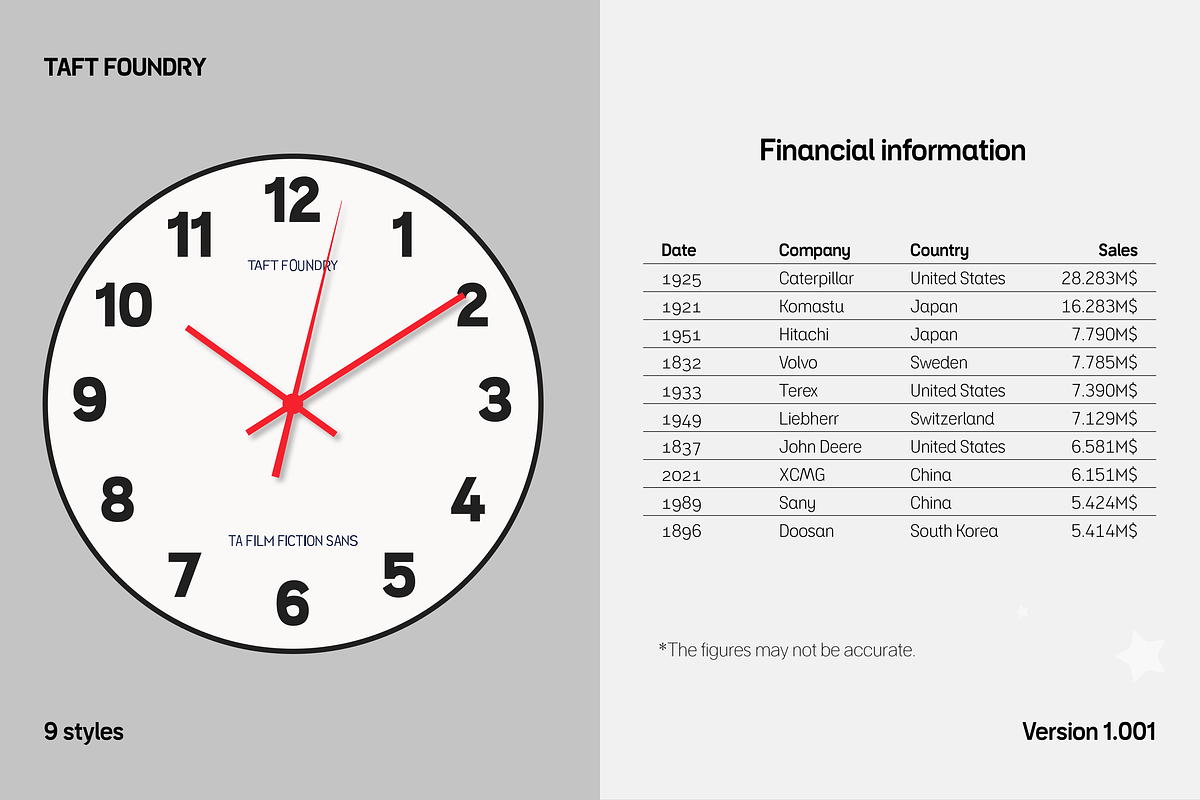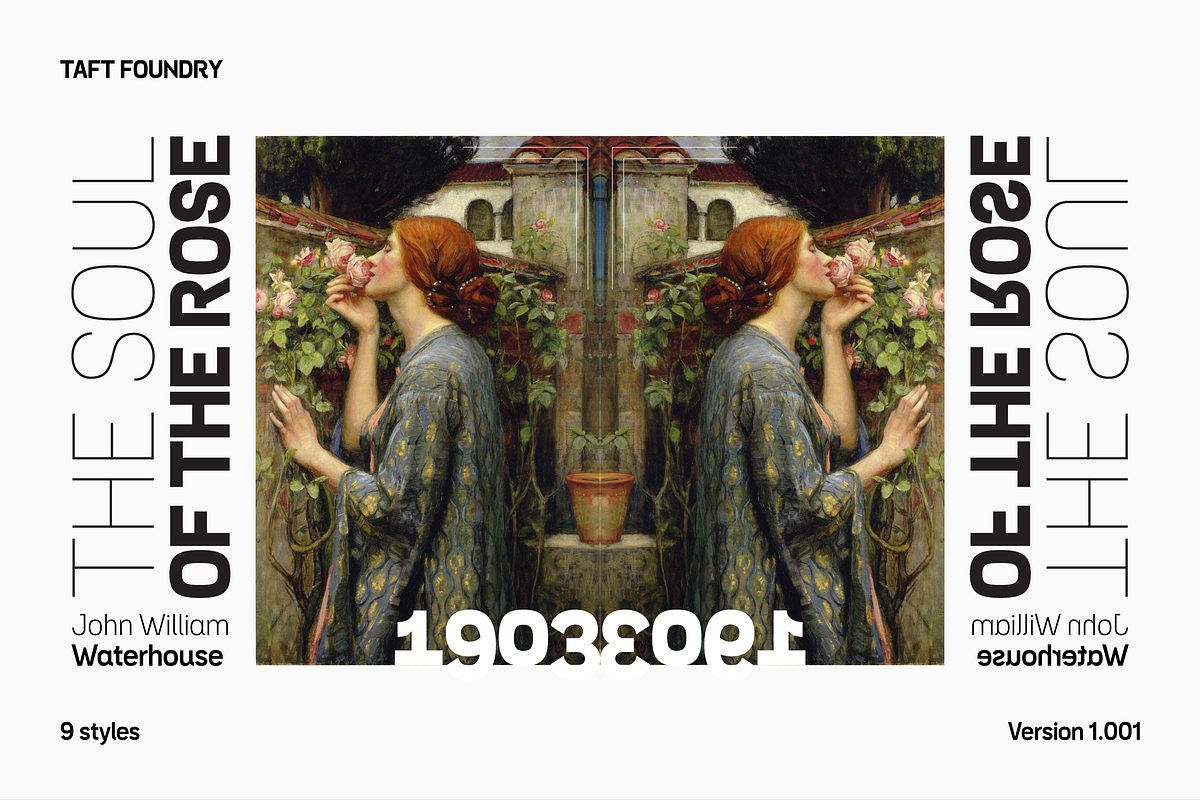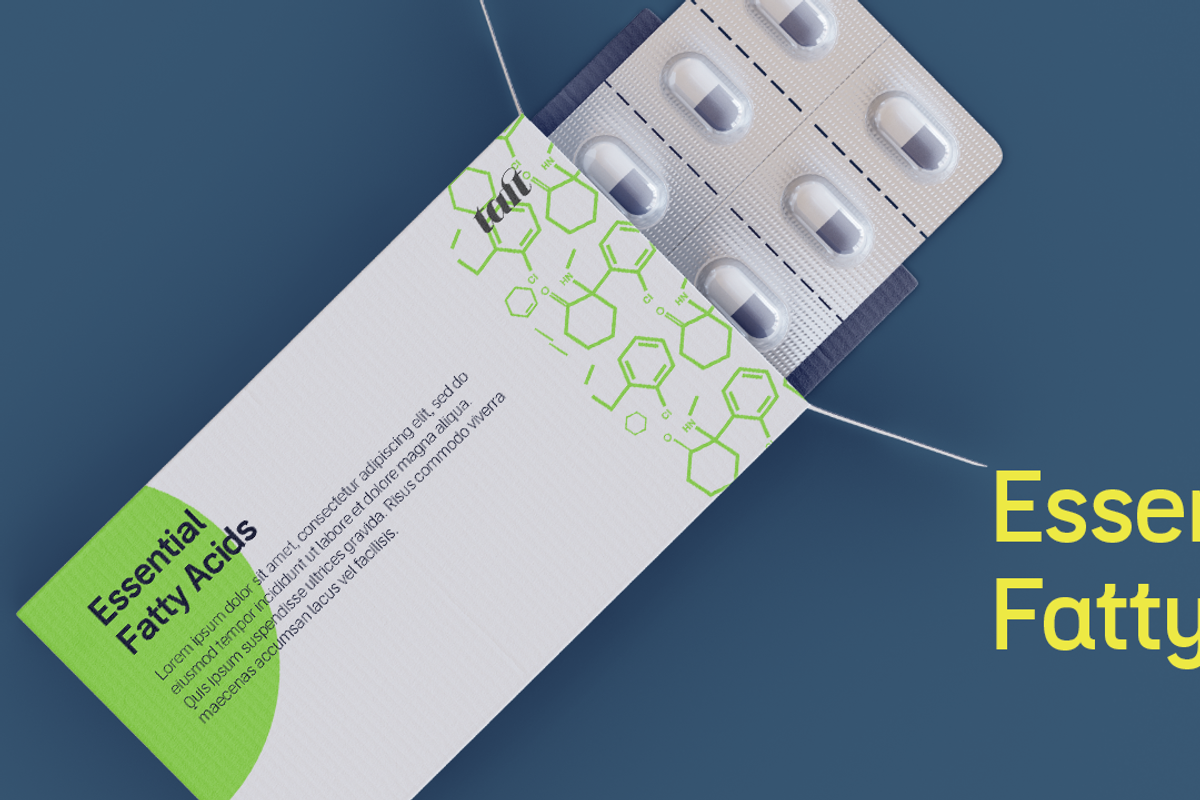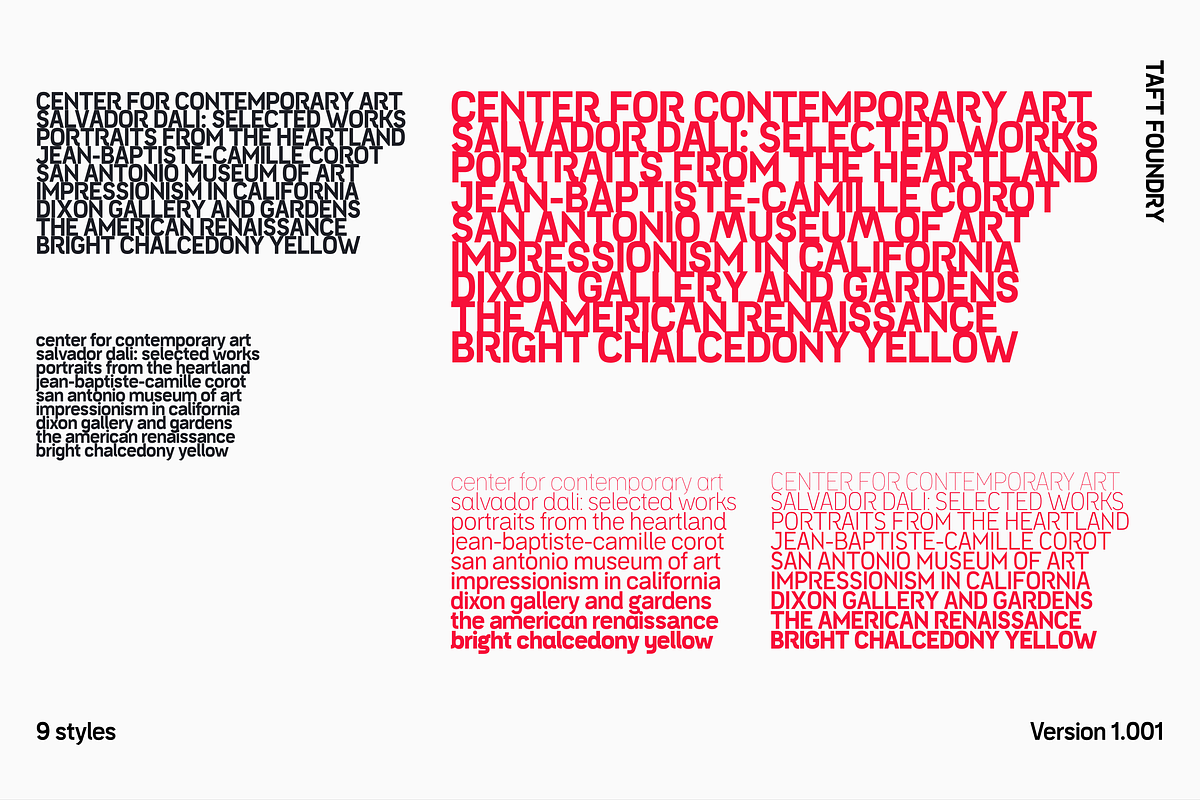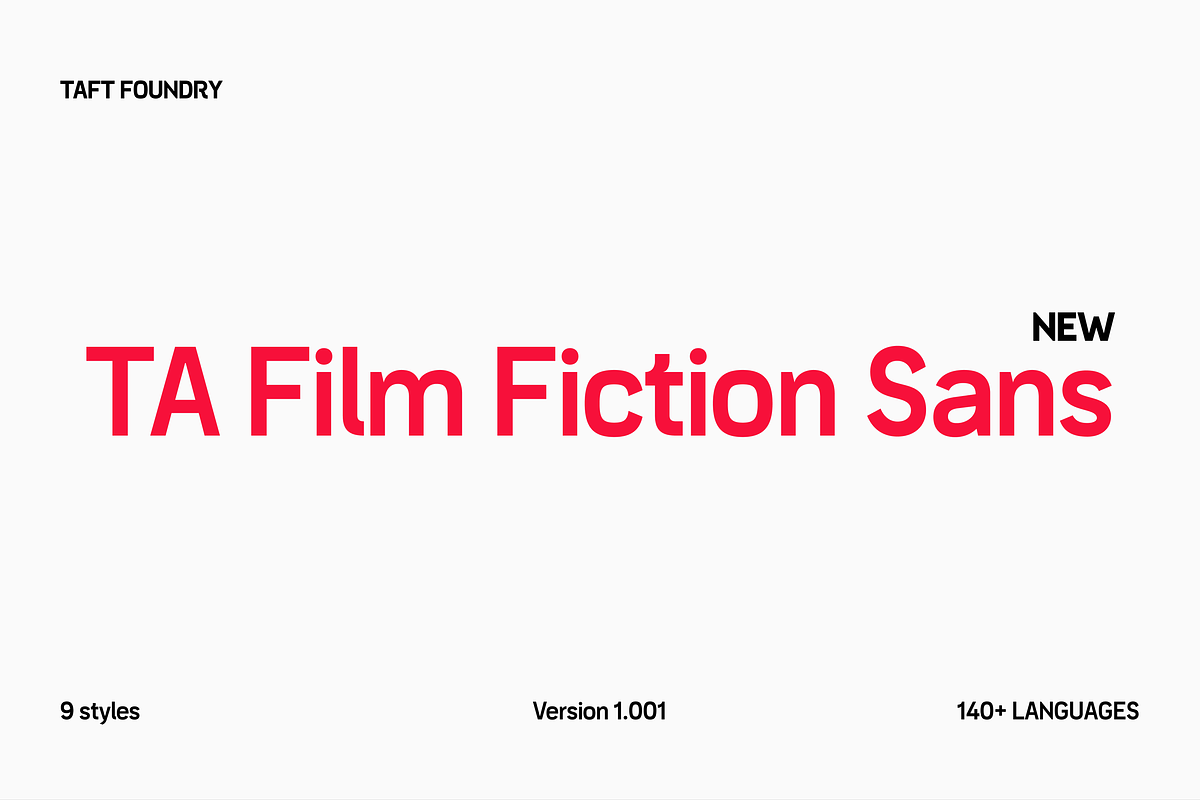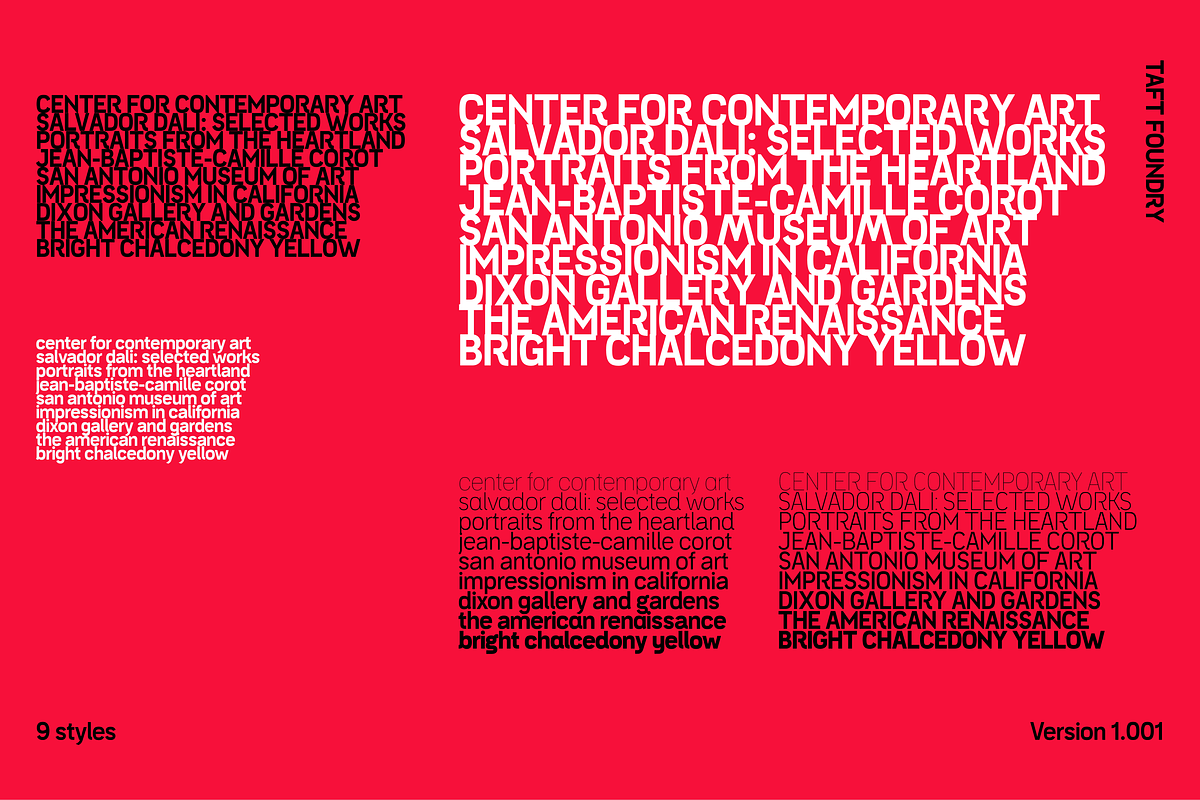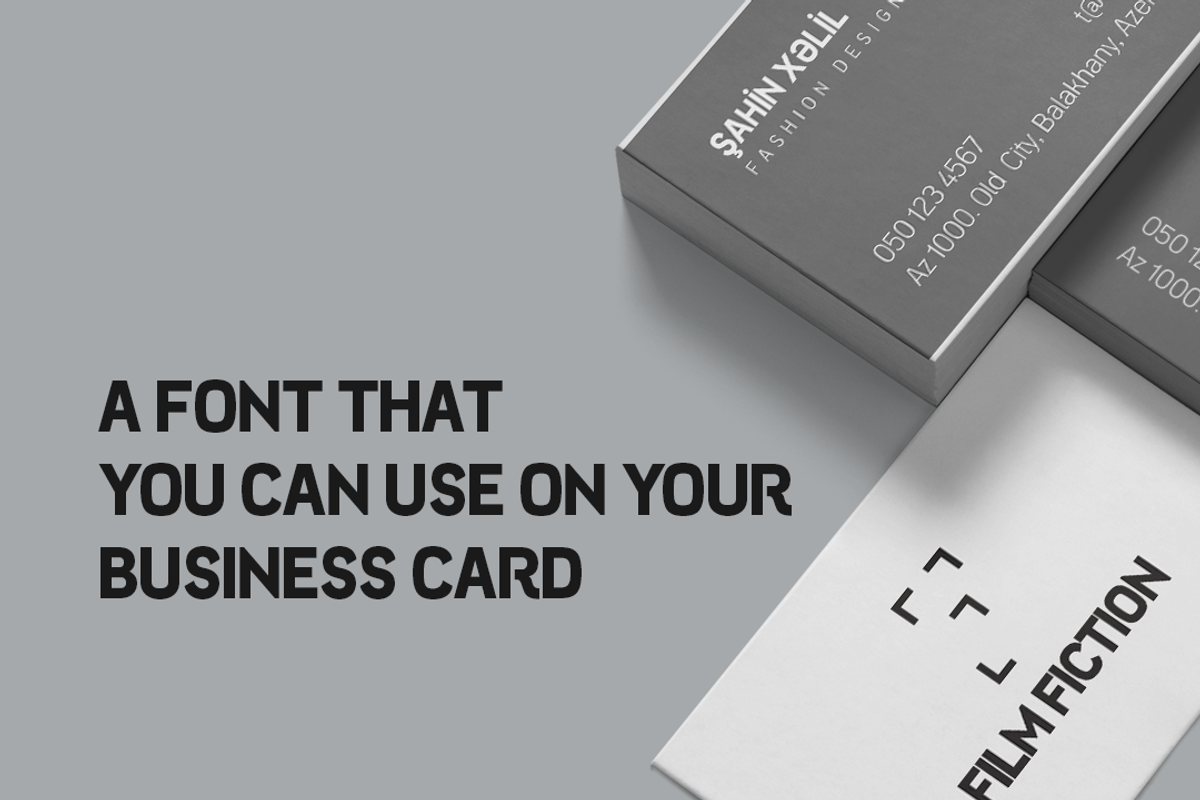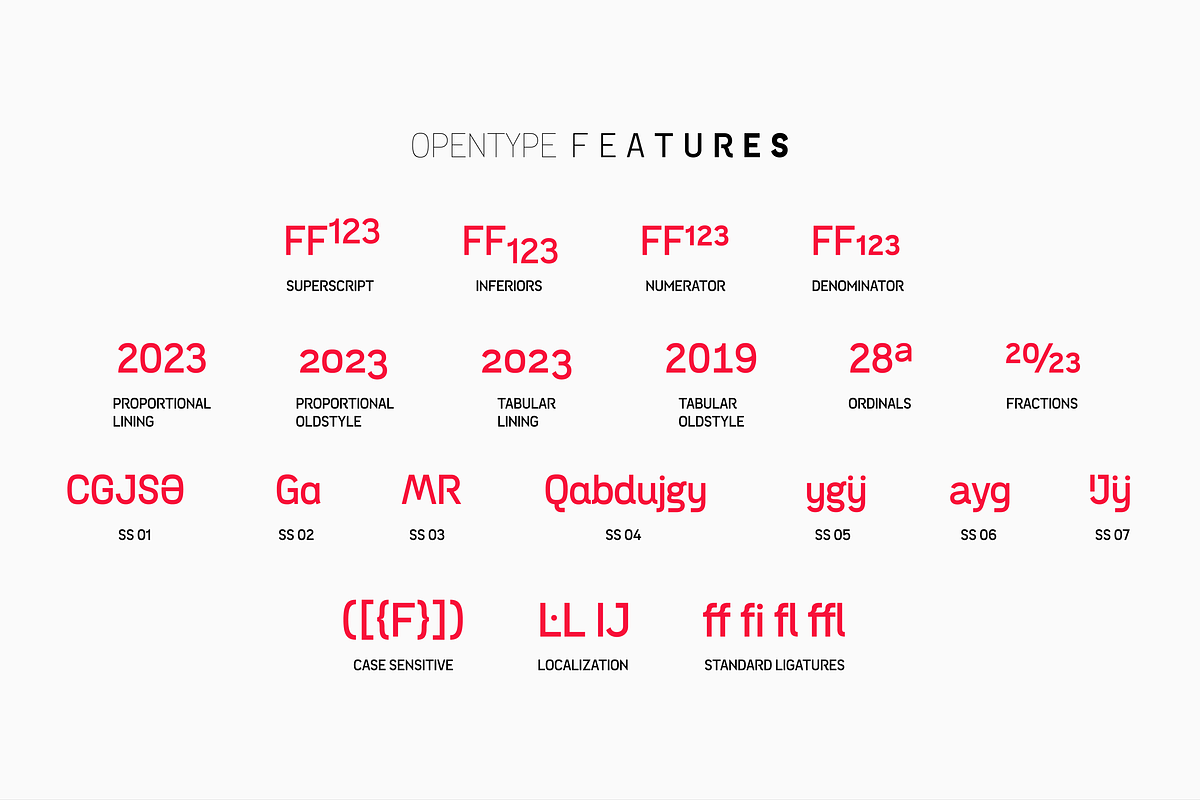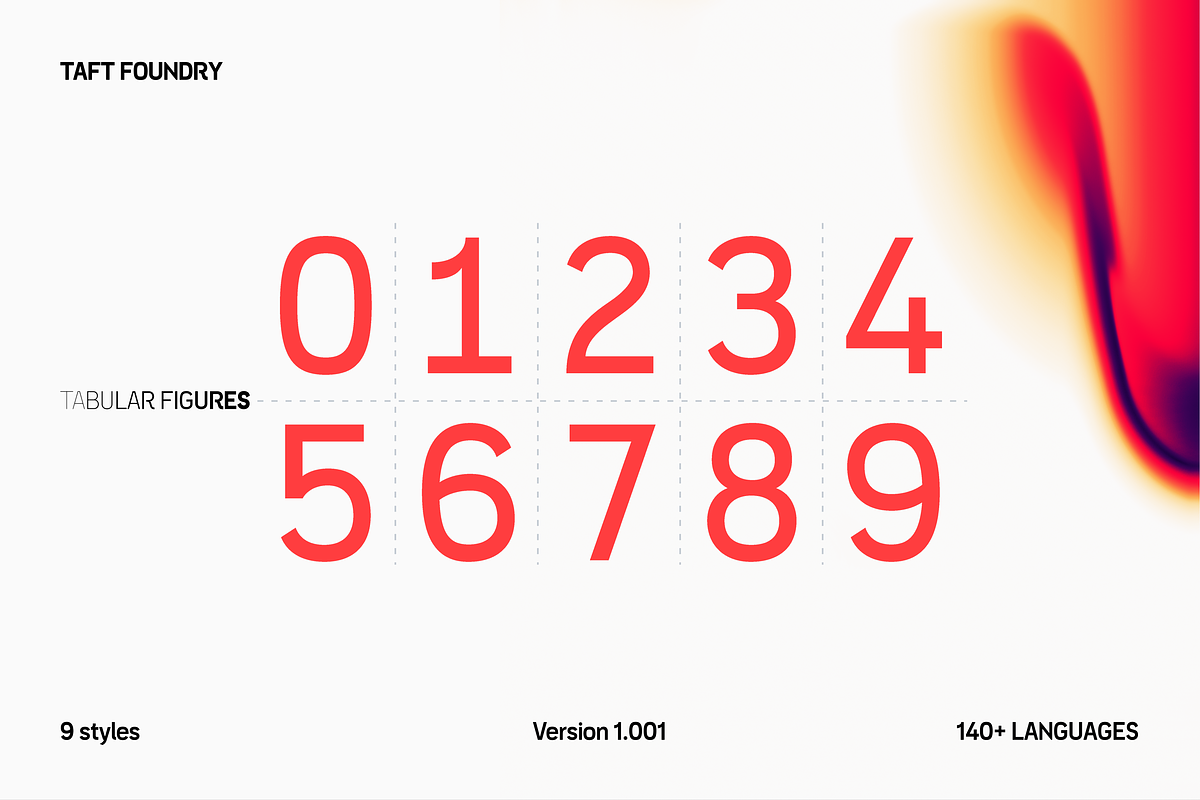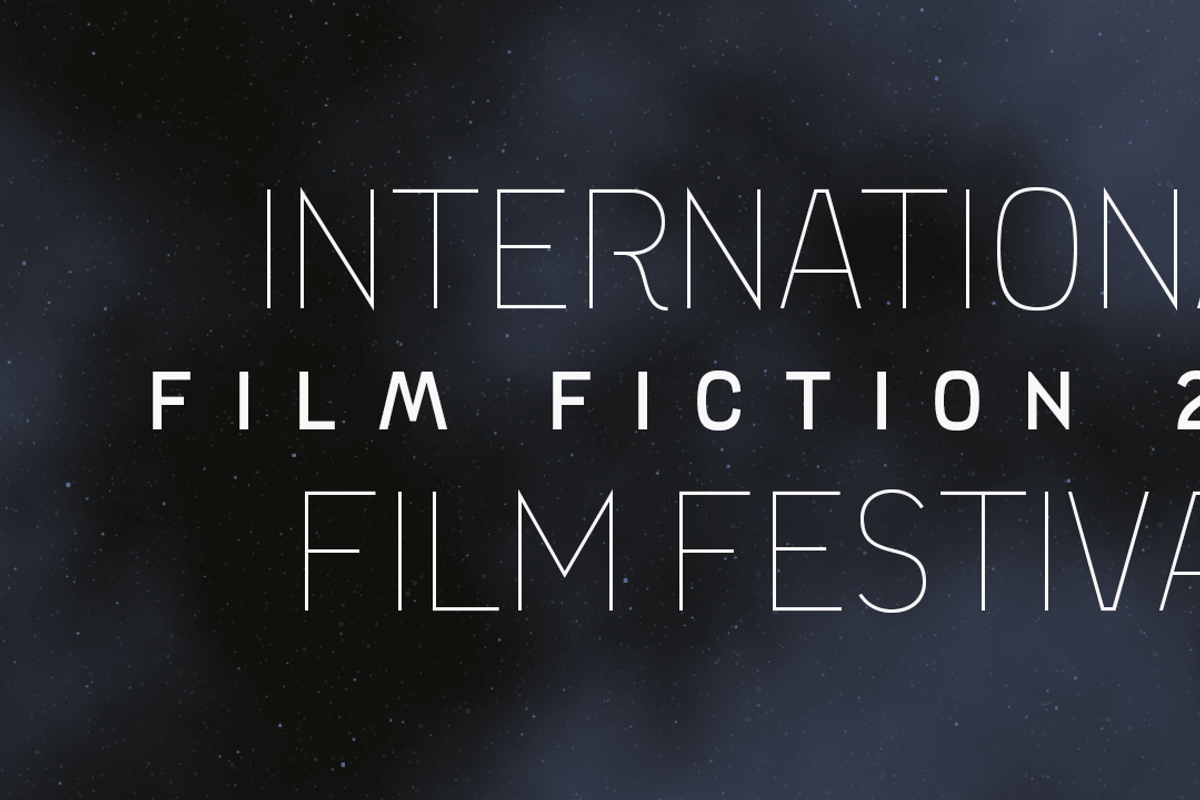
TA Film Fiction Sans
We've already updated and revitalized Film Fiction Sans to ensure it perfectly matches your evolving creative vision. The inclusion of tabular figures, old-style figures and alternative glyphs expands your design palette and allows you to adapt the font to your unique style. TA Film Fiction Sans has been updated experience the appeal – this can be your font of choice to enhance your brand identity, cinematic efforts and editorial design. This brilliant typeface is not just a typographic tool, but a creative catalyst for headlines, logos, web elements, signage, posters and fashion apparel, packaging. TA Film Fiction Sans does not follow trends, it defines them, imbuing each project with a true modern essence.
Embrace the possibilities with 9 different styles, each boasting a large set of 758 glyphs. Discover OpenType features: Access All Alternates, Case-Sensitive Forms, Glyph Composition / Decomposition, Denominators, Fractions, Kerning, Standard Ligatures, Lining Figures, Localized Forms, Mark Positioning, Mark to Mark Positioning, Numerators, Oldstyle Figures, Ordinals, Proportional Figures, Stylistic Alternates, Scientific Inferiors, Stylistic Set 1, Stylistic Set 2, Stylistic Set 3, Stylistic Set 4, Stylistic Set 5, Stylistic Set 6, Stylistic Set 7, Subscript, Superscript, Tabular Figures